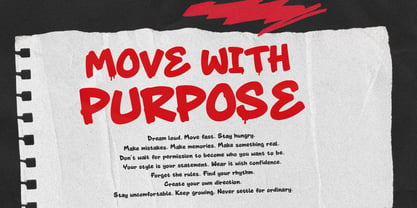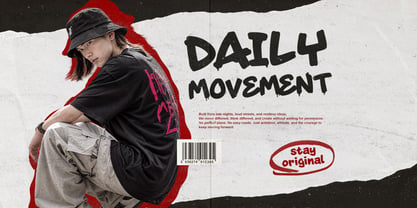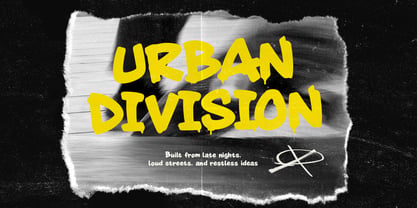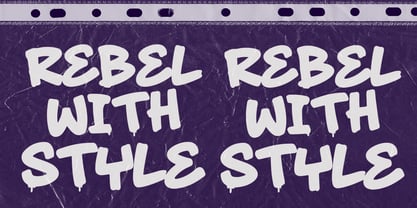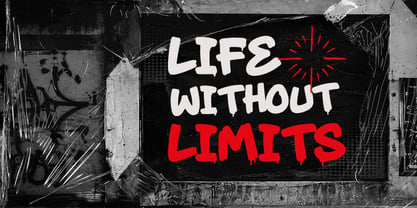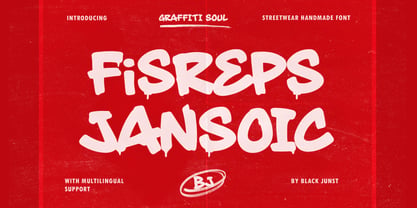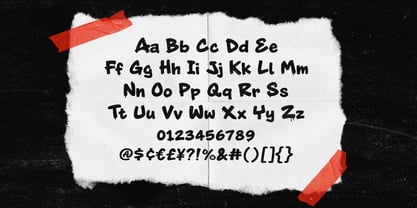
Fisreps Jansoic
The Fisreps Jansoic Font Family was designed by Maulana Semar and published by Black Junst. Fisreps Jansoic contains 2 styles and family package options. More about this family
Fisreps Jansoic is a bold handmade graffiti display typeface built around raw urban energy and expressive street lettering. Featuring chunky forms, irregular curves, organic proportions, and distinctive drippy details, it delivers an authentic handcrafted graffiti aesthetic with a strong visual presence.
Designed for projects that need bold and unconventional typography, Fisreps Jansoic is ideal for streetwear, apparel graphics, T-shirts, hoodies, graffiti artwork, posters, music branding, album covers, stickers, logos, packaging, skate culture, and social media campaigns.
Its rough handmade character gives designs an energetic, rebellious, and contemporary street attitude, making it particularly effective for large headlines, branding, merchandise, and attention-grabbing display applications.
Fisreps Jansoic also includes multilingual support, making it suitable for a wider range of international design projects.
Style: Graffiti, Streetwear, Handmade, Hand Drawn, Urban, Drippy, Bold Display, Raw, Expressive.